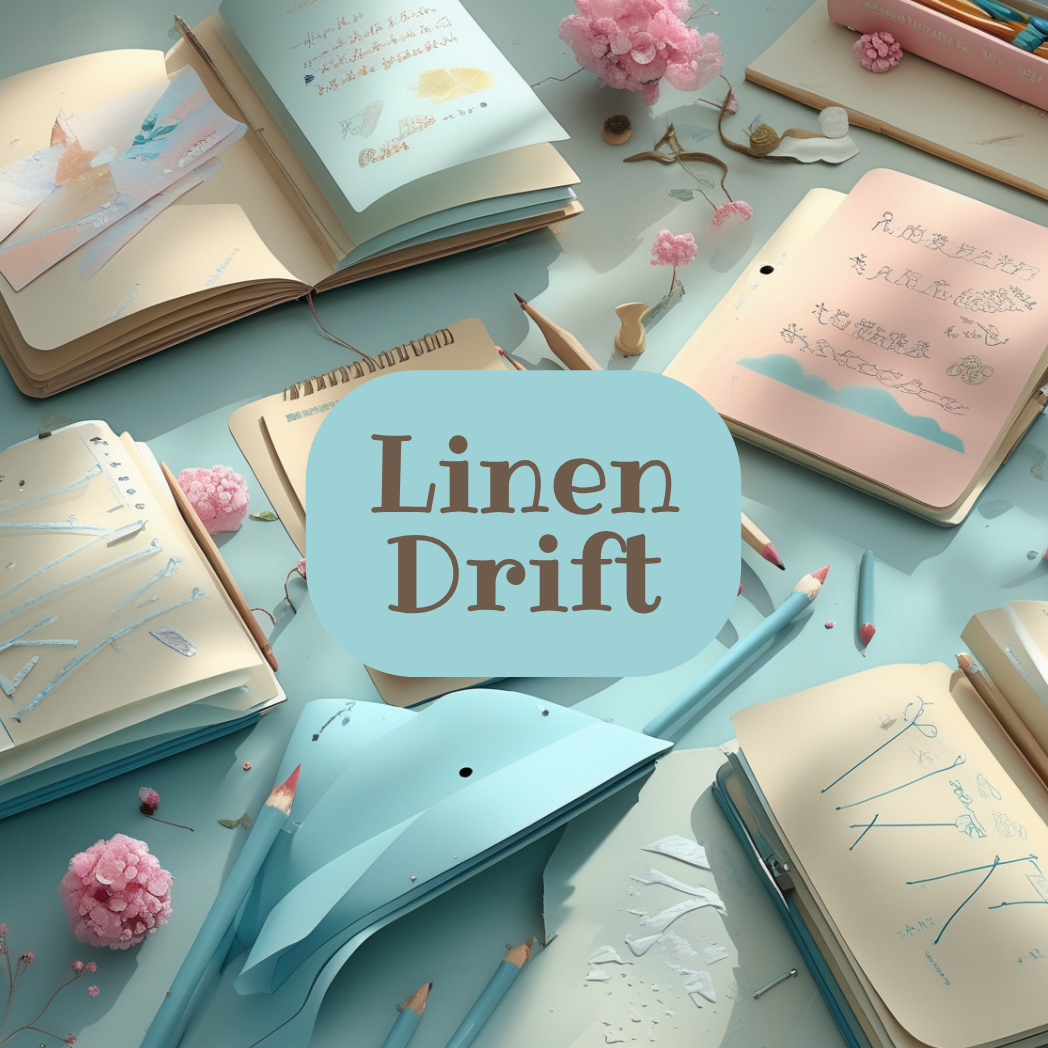
Linen Drift
Linen Drift features soft serifs that create a flowing visual cadence. Its shapes are refined yet grounded—each stroke with purpose. A great fit for layouts that need both classic structure and warmth. Includes additional glyphs to enrich titles and headings. It works well in print and digital settings, with a lasting gentle tone. Can be used as either a primary or accent font. Balanced for tags, supportive text blocks, and decorative inserts.